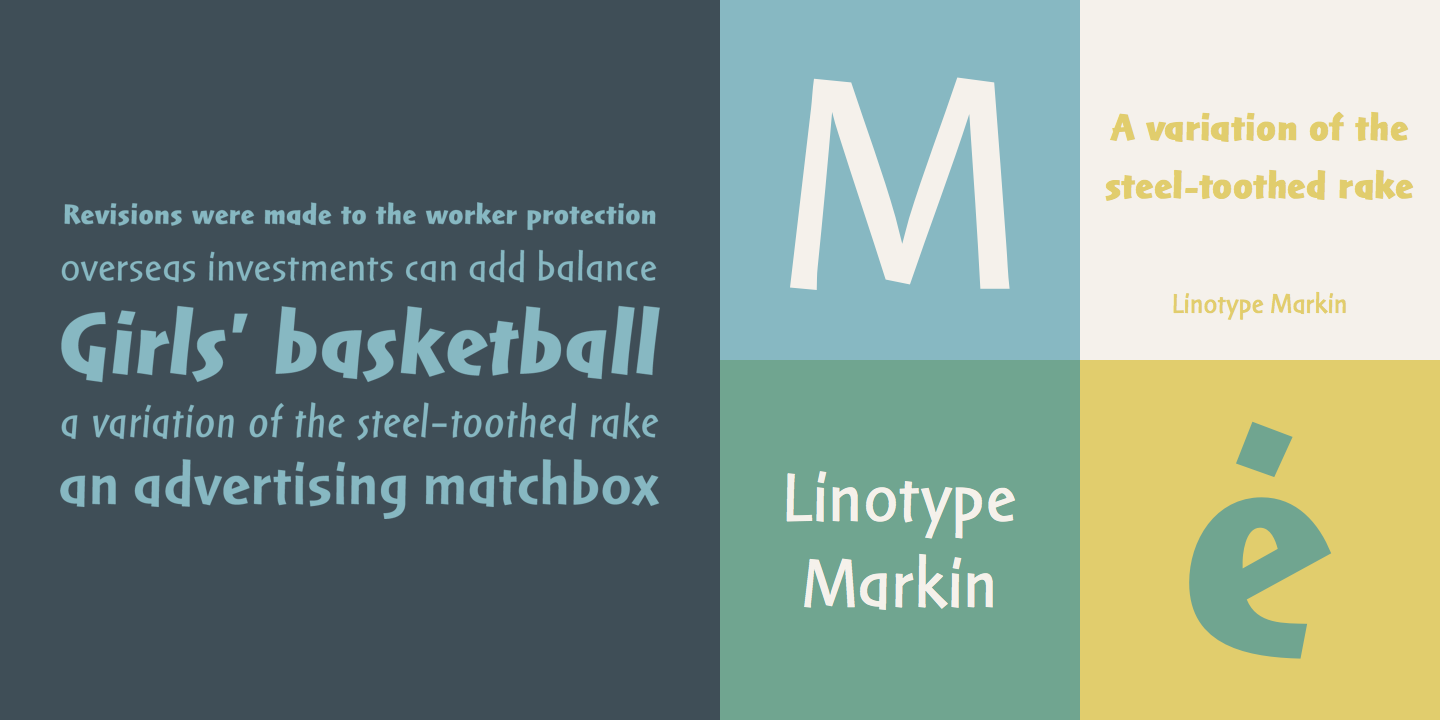
Linotype Markin Font is perfect for professional business correspondence, corporate identity systems, formal document layouts, executive presentation materials, high-end stationery design, legal firm branding, financial institution communications, and prestigious corporate announcements. This distinguished typeface excels in annual report design, professional letterheads, corporate website headers, and sophisticated business card layouts.
What makes Linotype Markin Font exciting is its corporate authority and professional distinction that captures the essential qualities of executive communication and institutional credibility in modern business environments. The font features refined letterforms, balanced proportions, and business-grade character that conveys reliability, trustworthiness, and professional competence. Its corporate sophistication and institutional quality make every word feel backed by professional expertise and business excellence.
Linotype Markin Font family includes various professional styles: Regular, Bold, Light, Medium, Condensed, and Extended variations. Each style maintains the font's signature corporate character while providing designers with comprehensive options for creating authoritative business brand identities and professional typography that resonates with executive audiences and institutional decision-makers.
Business professionals choose Linotype Markin Font Free Download for projects requiring corporate credibility and professional sophistication. The font's versatility makes it suitable for both digital business applications and traditional printed corporate materials, ensuring authoritative results across professional websites, business documentation, and executive communications.